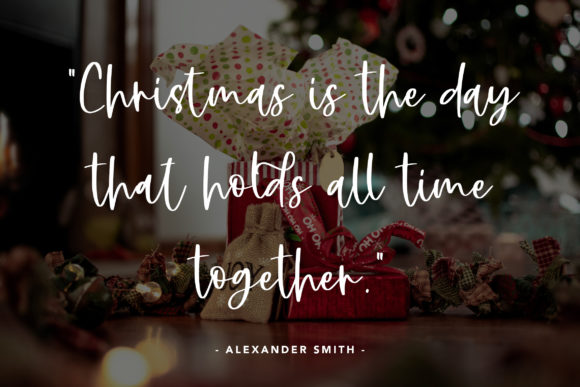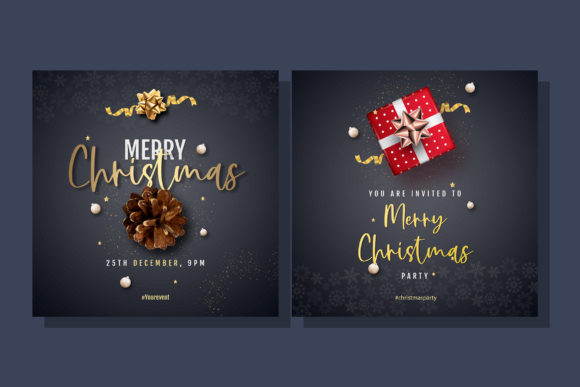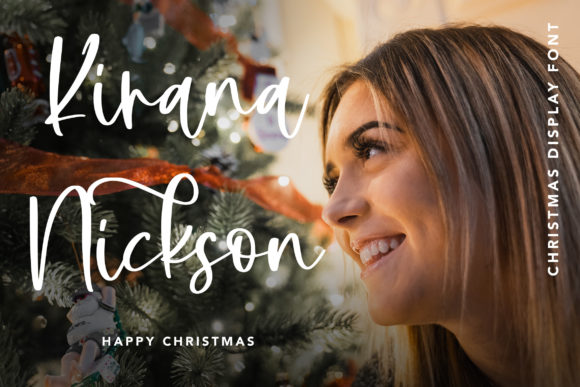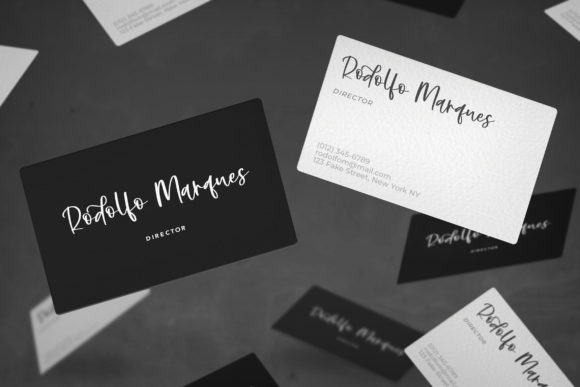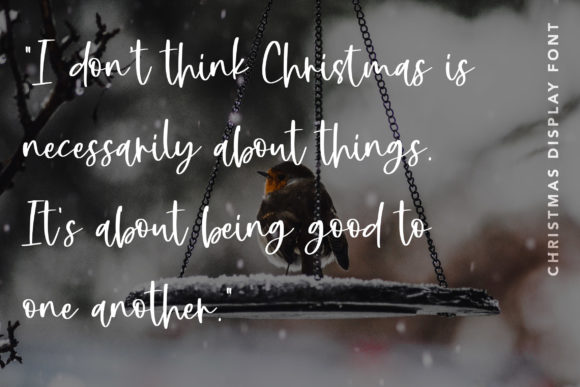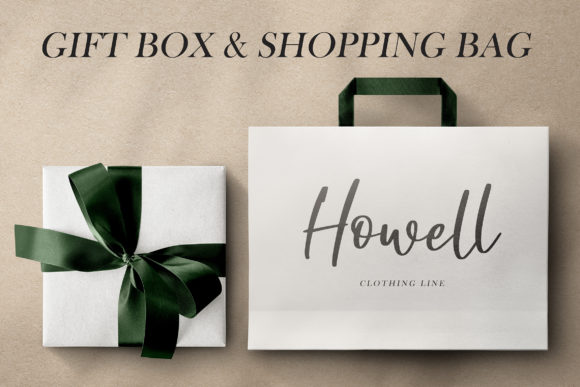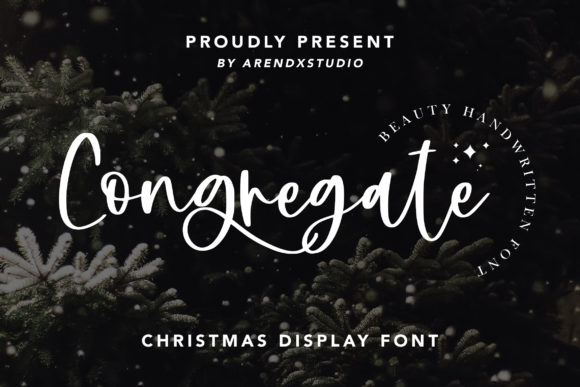
Congregate Font: Elevate Your Designs with Elegance and Class
In the world of typography, fonts play a crucial role in conveying the tone and personality of a design. For those seeking a beautiful and refreshing look, Congregate Font is an excellent choice. This lovely and delicate script font exudes elegance and class, making it perfect for designers and crafters looking to add a touch of sophistication to their work.
The Story Behind Congregate Font
Congregate Font was particularly crafted for those who need a beautiful and refreshing look to their designs. The font’s creators aimed to develop a typeface that would bring a sense of luxury and refinement to various design projects. With its intricate and flowing lines, Congregate Font is sure to captivate audiences and leave a lasting impression.
Key Features of Congregate Font
Congregate Font boasts several key features that make it an excellent addition to any designer’s toolkit:
- Elegant and Delicate: Congregate Font’s script style is characterized by its elegant and delicate appearance, making it perfect for designs that require a touch of sophistication.
- Highly Readable: Despite its ornate nature, Congregate Font remains highly readable, even at smaller font sizes.
- Versatile: This font can be used in a wide range of design projects, from wedding invitations and branding materials to packaging and digital media.
- Unique Character Set: Congregate Font features a unique character set, including uppercase and lowercase letters, numbers, and special characters.
What Makes Congregate Font Stand Out
In a sea of fonts, Congregate Font stands out for its distinctive and refined appearance. Here are a few reasons why designers and crafters are drawn to this beautiful script font:
- Emotional Connection: Congregate Font’s elegant and delicate nature evokes an emotional response, making it perfect for designs that aim to create a connection with the audience.
- Attention to Detail: The font’s intricate lines and curves demonstrate a high level of attention to detail, making it ideal for designers who value precision and craftsmanship.
- Flexibility: Congregate Font can be used in various design contexts, from formal and traditional to modern and creative.
Tips for Using Congregate Font Effectively
To get the most out of Congregate Font, consider the following tips:
- Pair with Neutral Fonts: Combine Congregate Font with neutral fonts to create a striking contrast and add visual interest to your design.
- Use for Headings and Titles: Congregate Font’s elegant nature makes it perfect for headings and titles, where it can add a touch of sophistication and glamour.
- Experiment with Colors: Try pairing Congregate Font with different colors to create a unique and eye-catching effect.
Where to Use Congregate Font
Congregate Font’s versatility makes it suitable for a wide range of design projects, including:
- Wedding Invitations and Stationery: Add a touch of elegance and sophistication to your wedding invitations and stationery with Congregate Font.
- Branding and Packaging: Use Congregate Font to create luxurious and high-end branding materials and packaging.
- Digital Media: Congregate Font can be used in digital media, such as website headers, social media graphics, and email newsletters.
Congregate Font is a beautiful and refreshing script font that can elevate your designs with its elegance and class. With its intricate lines, highly readable nature, and versatile character set, this font is perfect for designers and crafters seeking to add a touch of sophistication to their work. Whether you’re creating wedding invitations, branding materials, or digital media, Congregate Font is an excellent choice.